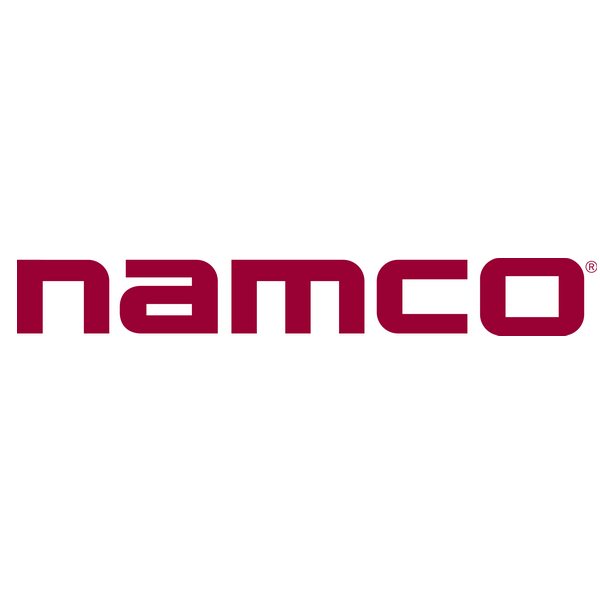
Namco Font
Company & ConsolesNamco is a Japanese video game developer and publisher known for creating popular franchises such as Pac-Man, Tekken, and Soulcalibur.